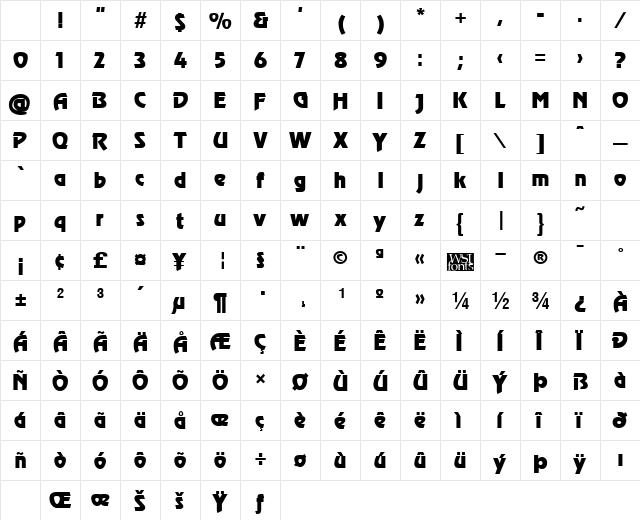
Revel Regular
Revel Family
Revel Regular
Design Context for Revel
Revel is a composed and adaptable typeface that performs quietly and consistently across a wide range of design contexts.